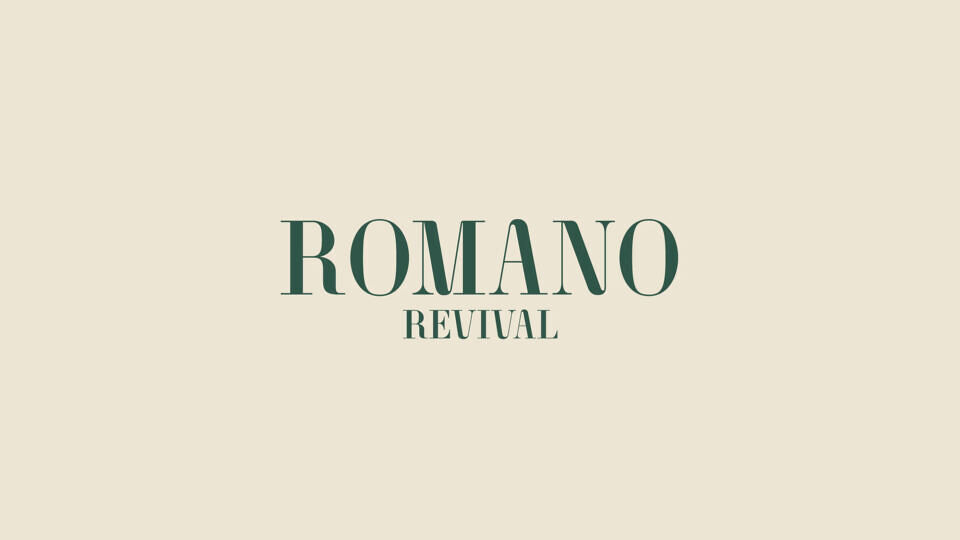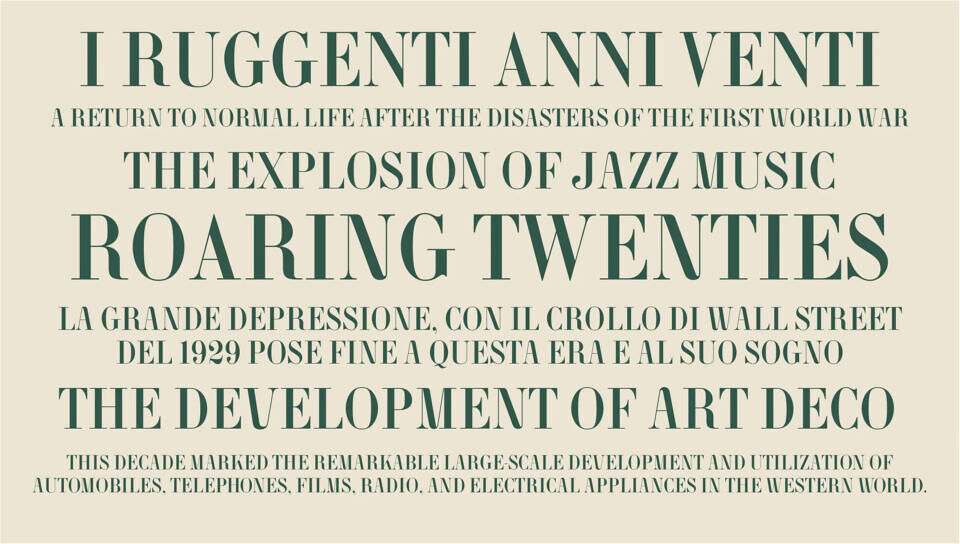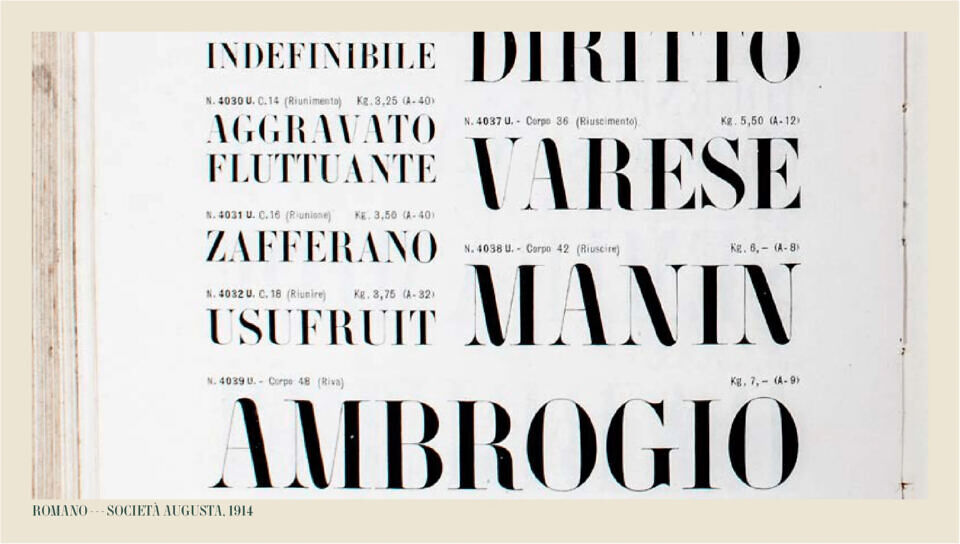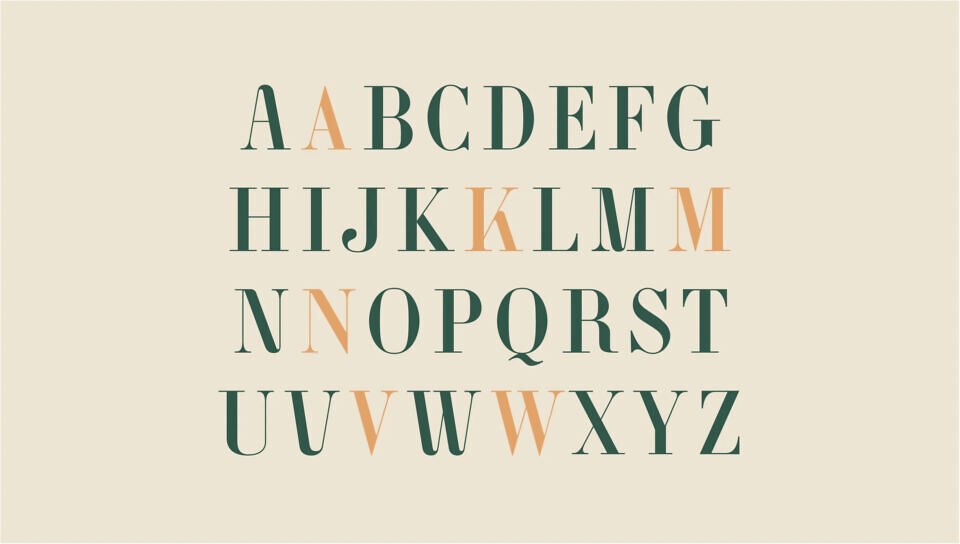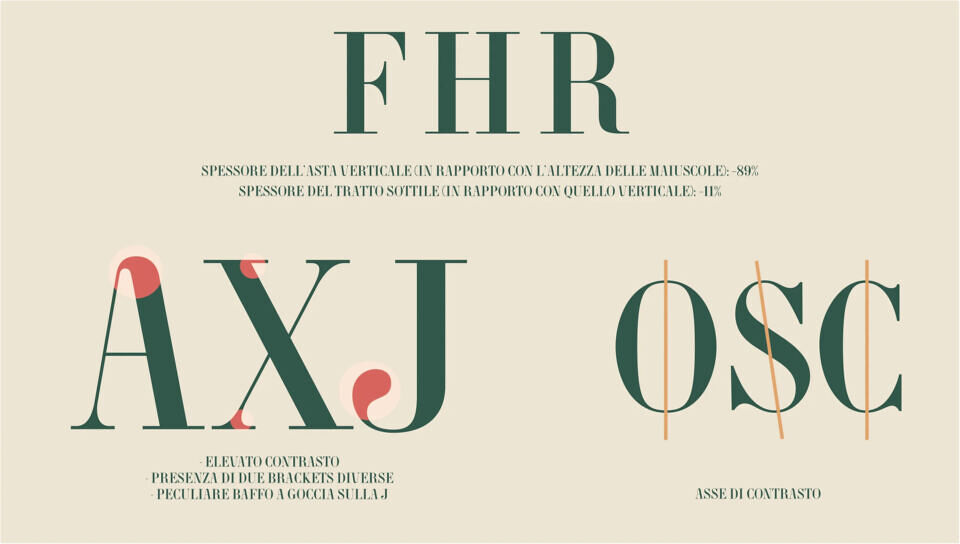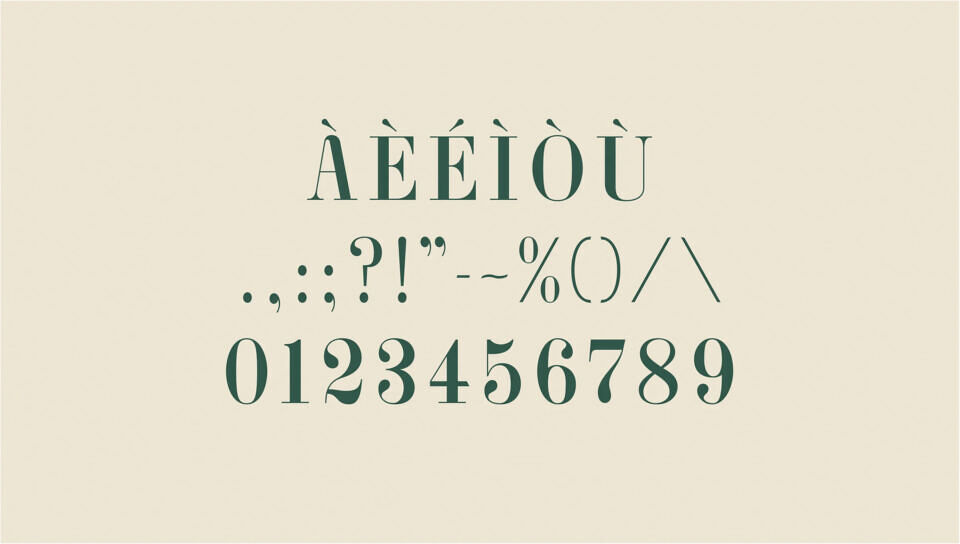
Romano Revival is a typeface developed as a university project in collaboration with a team of classmates back in 2023. We were tasked with reviving a 1914 font, working exclusively from photographs of aged pages taken from an original type specimen book where the design appeared.
Rooted in pure Art Nouveau aesthetics, Romano Revival features soft curved terminals, medium elegant tall proportions, and a refined vertical rhythm. It combines extremely thin hairlines with robust strokes, creating a dramatic contrast reminiscent of Didot. The result is a contemporary reinterpretation that preserves the ornamental delicacy and expressive elegance of its early twentieth century origins.